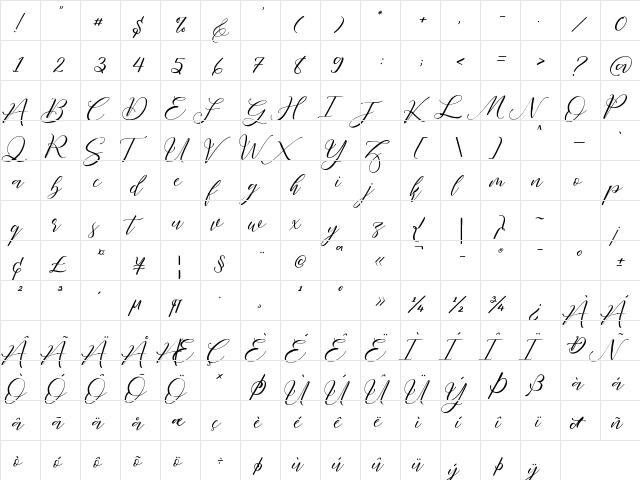
Fathir Script Personal Use Only Regular
Design Context for Fathir Script Personal Use Only Typeface
Fathir Script Personal Use Only flows with the natural rhythm of handwritten lettering, making it ideal for designs that call for warmth and personal expression.
Font Pairing: Combine Fathir Script Personal Use Only with a simple geometric sans for maximum contrast — the tension between flowing curves and clean structure is a classic typographic pairing.
Pro Tip: Pair Fathir Script Personal Use Only with a clean sans-serif for supporting text. The contrast between fluid script and geometric structure creates an elegant typographic hierarchy.